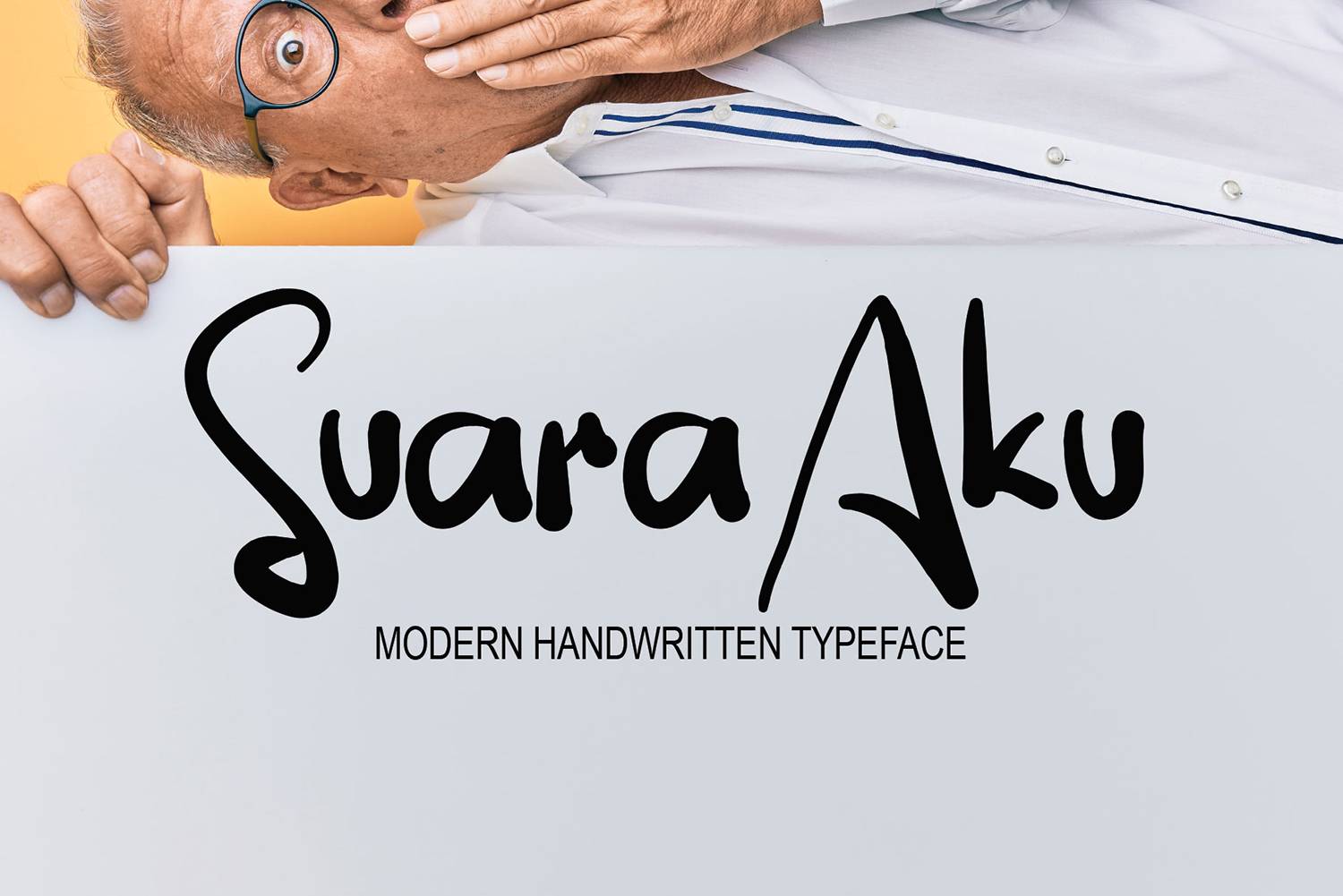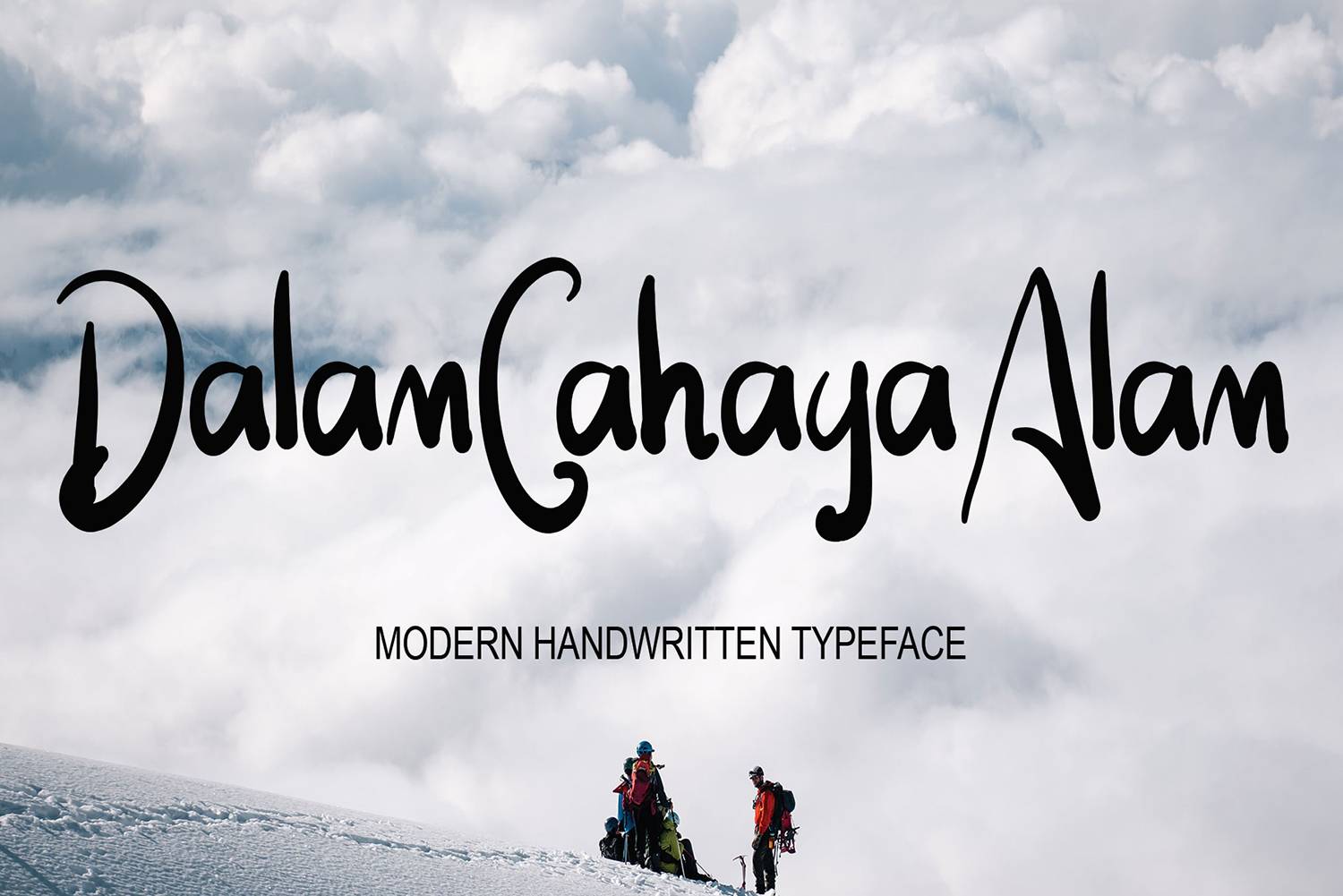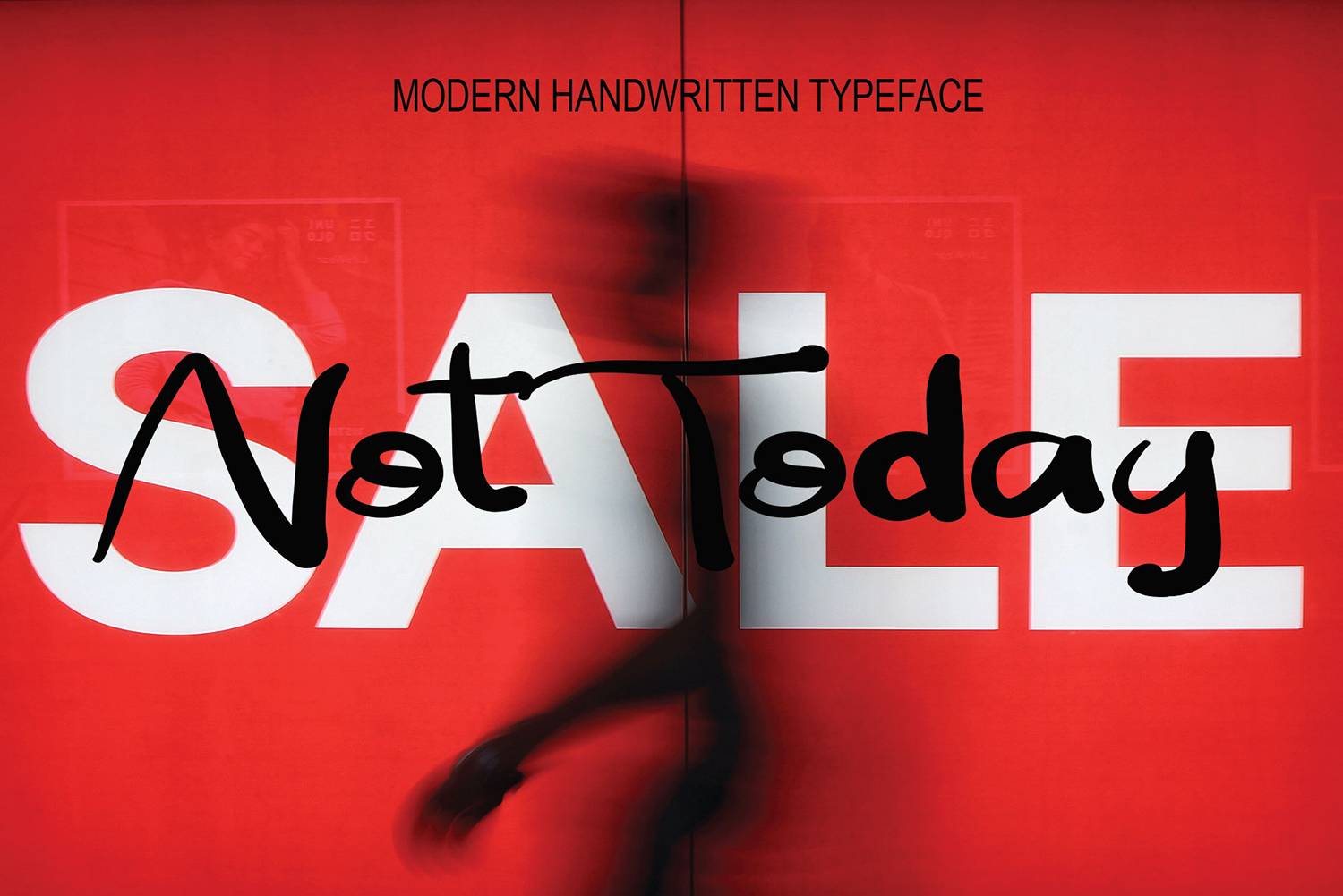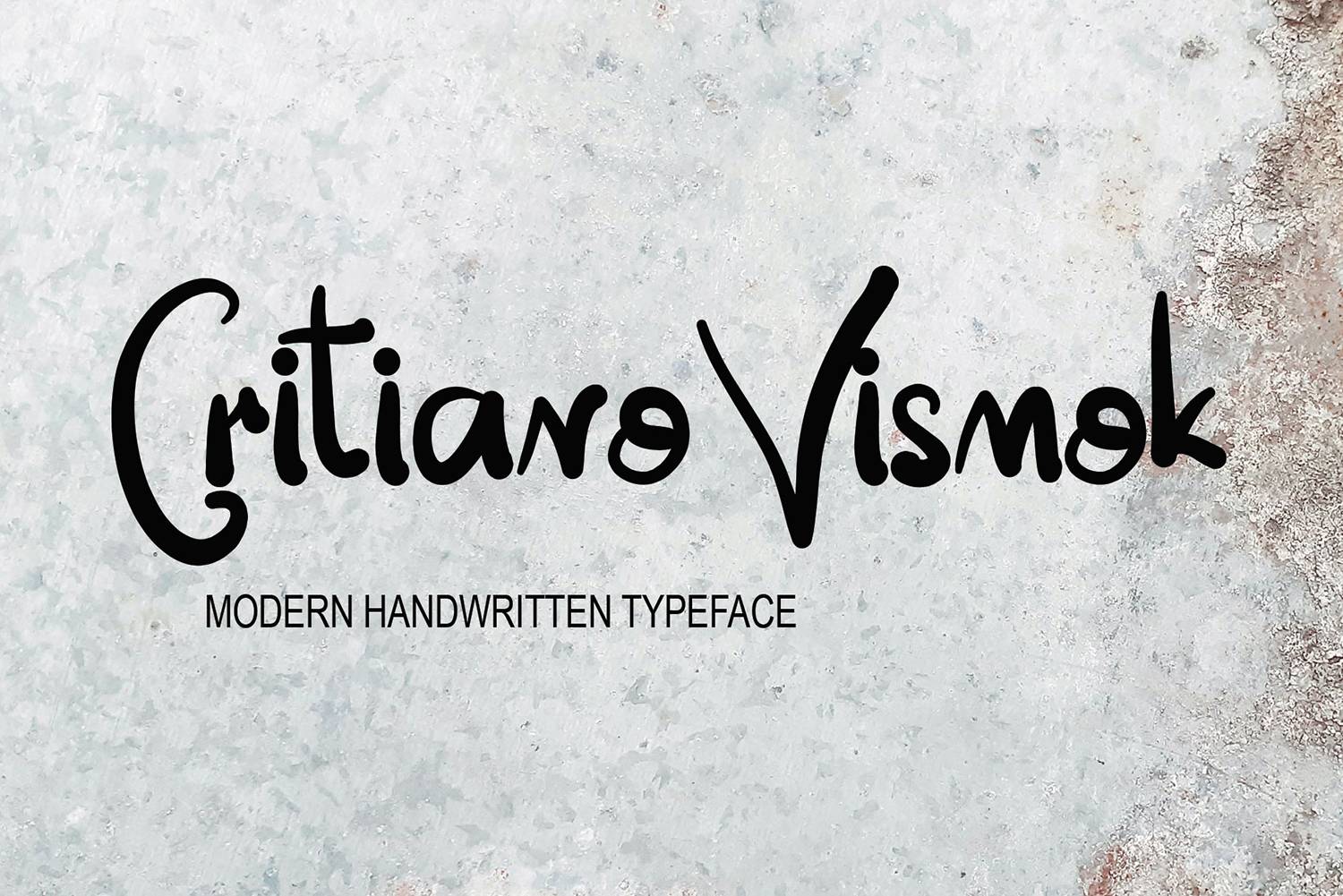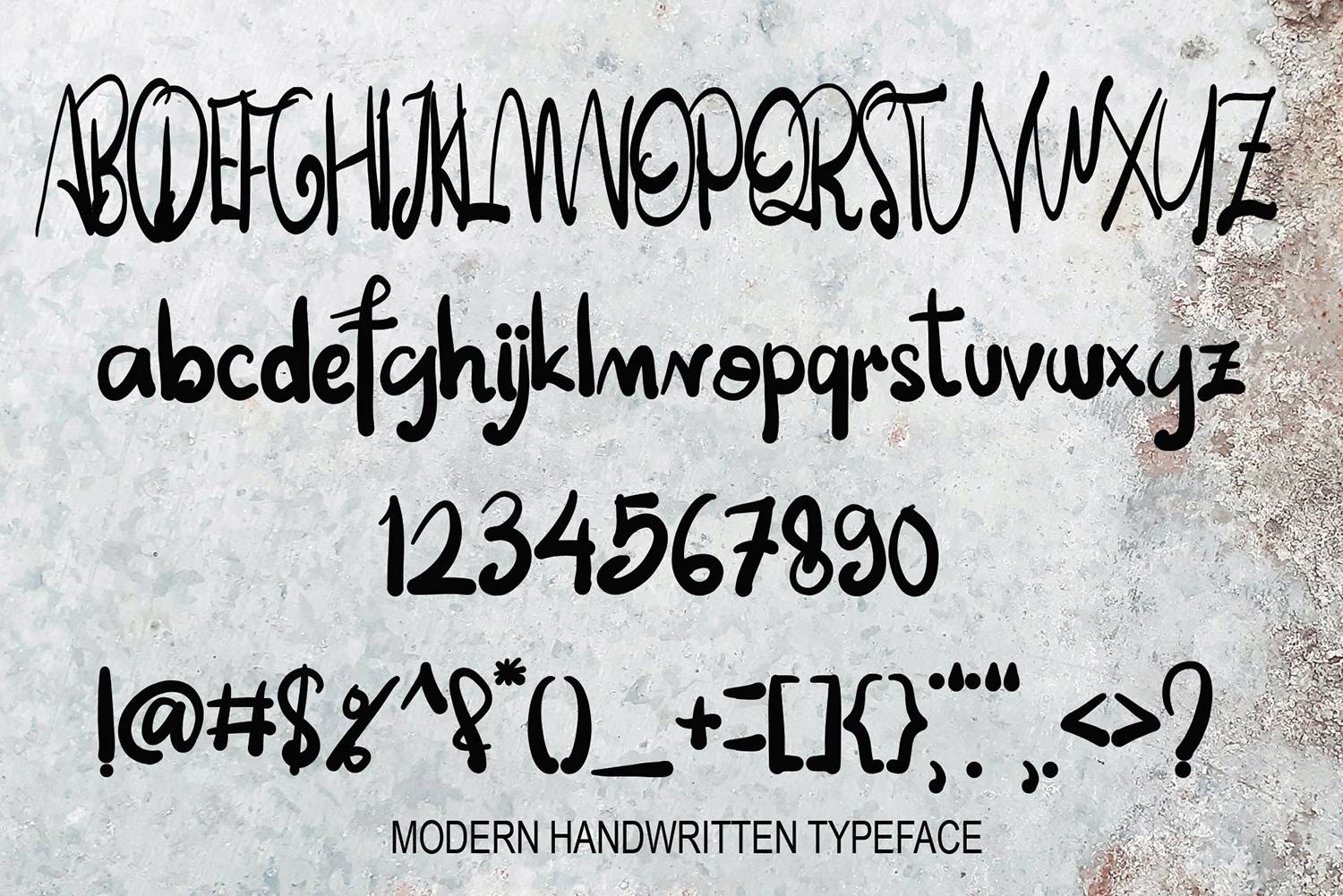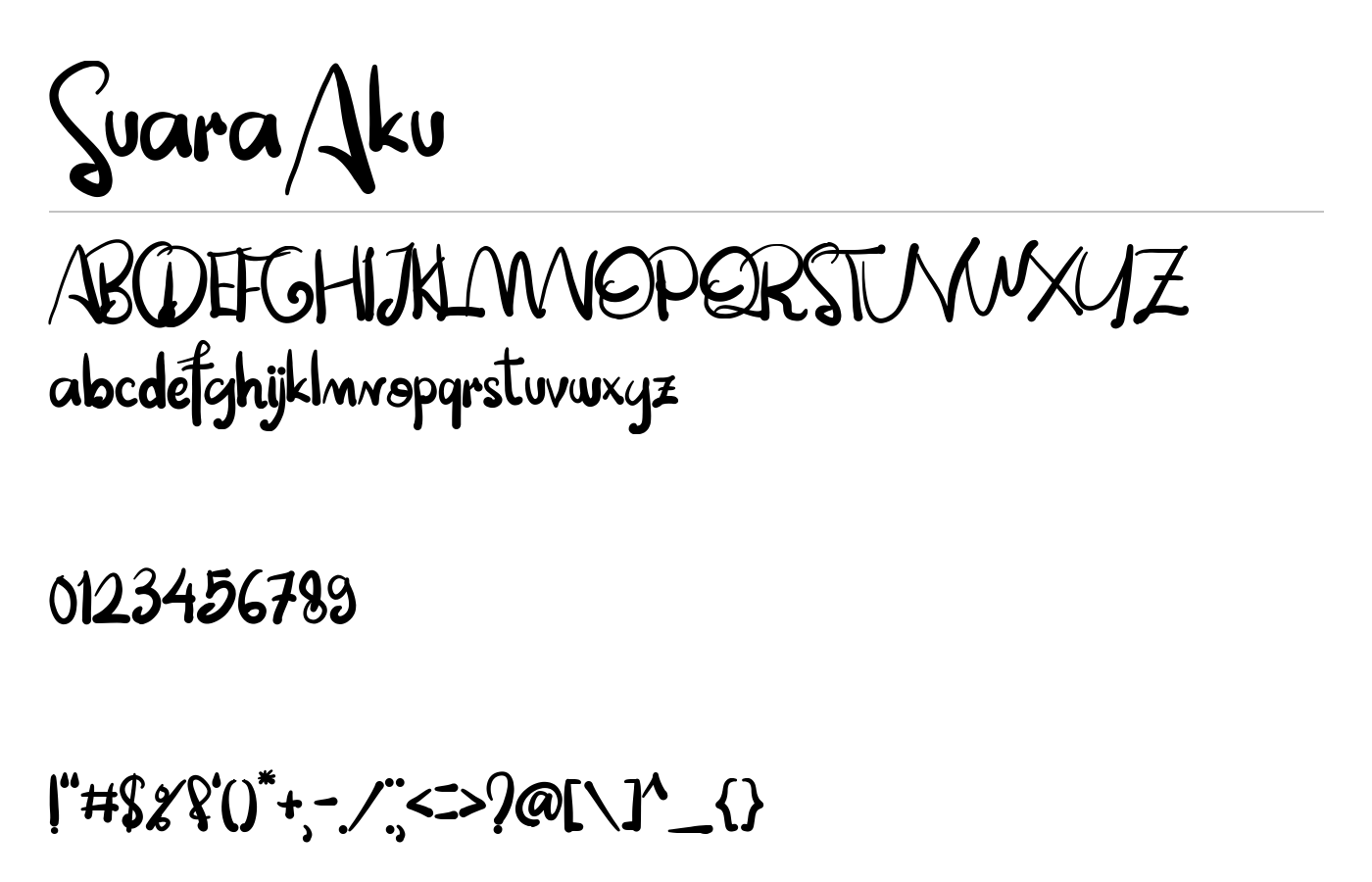
Suara Aku is a lively handwritten script font with a playful and casual vibe, featuring uneven strokes and quirky letterforms that give it a friendly and personal touch. Its irregular shapes and artistic flair make it ideal for creative projects, informal branding, and designs that aim to feel approachable and unique. This font works best in logos, posters, and social media graphics where a fun, expressive style is desired.
Suara Aku Font
About Suara Aku Font
| Font family | Suara Aku Font |
| Designer | Canden Meutuah |